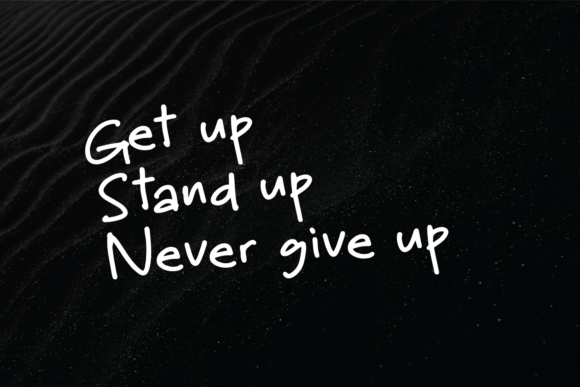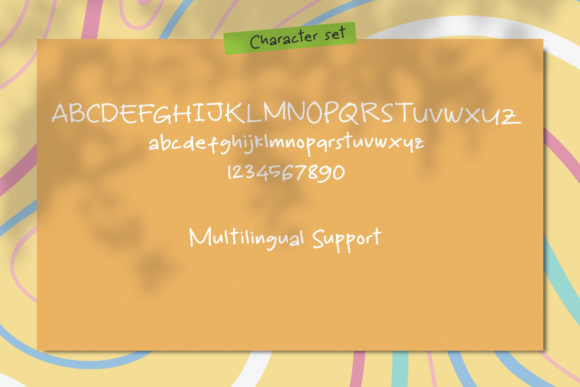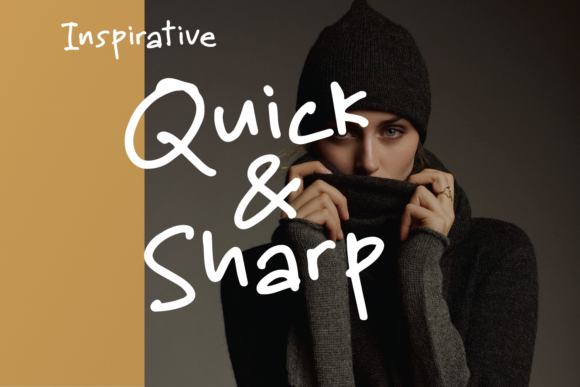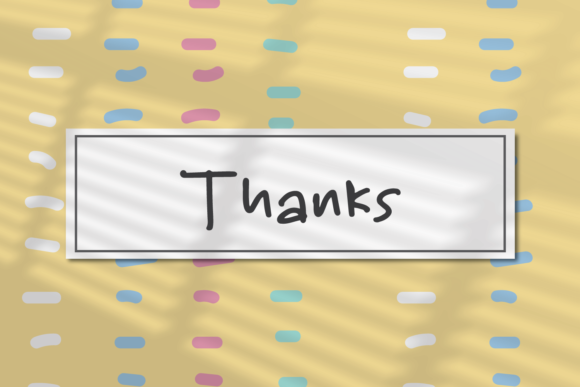
Amanda Font: Elevate Your Designs with a Simple yet Elegant Handwritten Font
In the world of typography, a font can make or break a design. It’s the perfect blend of style, elegance, and readability that can elevate a creation from ordinary to extraordinary. If you’re a designer, crafter, or simply someone who loves to dabble in creative projects, you’re in luck! Introducing Amanda Font, a simple and neat handwritten font that’s about to become your new go-to asset.
The Beauty of Amanda Font
Amanda Font is a beautifully crafted handwritten font that’s perfect for a wide range of projects. Whether you’re working on a branding campaign, a craft project, or simply want to add a personal touch to your digital creations, Amanda Font has got you covered. Its simplicity and elegance make it an incredibly versatile font that can be used in various contexts, from formal to informal.
One of the standout features of Amanda Font is its readability. Even at smaller font sizes, it remains clear and easy to read, making it perfect for body text, headings, and titles. The font’s neat and tidy appearance also ensures that it won’t distract from the content, allowing your message to shine through.
Why Amanda Font is a Must-Have
So, what makes Amanda Font an essential addition to your font library? Here are just a few reasons:
- Versatility: Amanda Font can be used in a wide range of projects, from digital designs to print materials, and even crafts.
- Elegance: The font’s simple yet elegant design makes it perfect for projects that require a touch of sophistication.
- Readability: Amanda Font is incredibly easy to read, even at smaller font sizes.
- Flexibility: The font can be used in various contexts, from formal to informal, making it a great all-around font to have in your library.
How to Use Amanda Font in Your Designs
Using Amanda Font in your designs is incredibly easy. Here are a few tips to get you started:
- Pair it with bold fonts: Combine Amanda Font with bold fonts for a striking contrast that adds visual interest to your design.
- Use it for headings: Amanda Font is perfect for headings and titles, adding a touch of elegance to your design.
- Experiment with colors: Try pairing Amanda Font with different colors to add a pop of personality to your design.
Perfect for Crafters and Designers
Amanda Font is not just a font; it’s a tool that can help you elevate your designs and take your creativity to the next level. Whether you’re a professional designer or a crafter who loves to DIY, Amanda Font is the perfect addition to your toolkit.
With Amanda Font, you can:
- Create stunning visual content: Use Amanda Font to create beautiful visual content that showcases your brand or personality.
- Add a personal touch: Add a personal touch to your designs with Amanda Font’s elegant and handwritten style.
- Stand out from the crowd: Use Amanda Font to create unique and eye-catching designs that set you apart from the competition.
In conclusion, Amanda Font is a simple yet elegant handwritten font that’s sure to become a staple in your font library. Its versatility, elegance, and readability make it the perfect addition to any design project. Whether you’re a designer, crafter, or simply someone who loves to dabble in creative projects, Amanda Font is a must-have font that can help you elevate your designs and take your creativity to the next level.